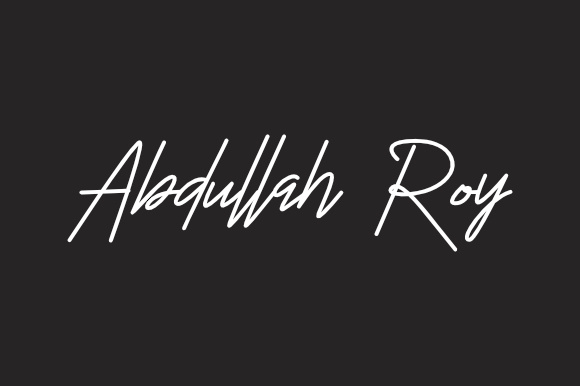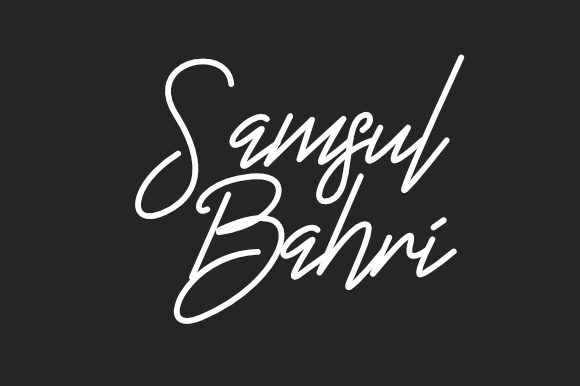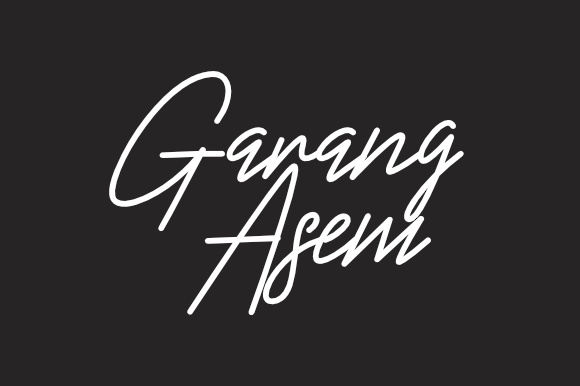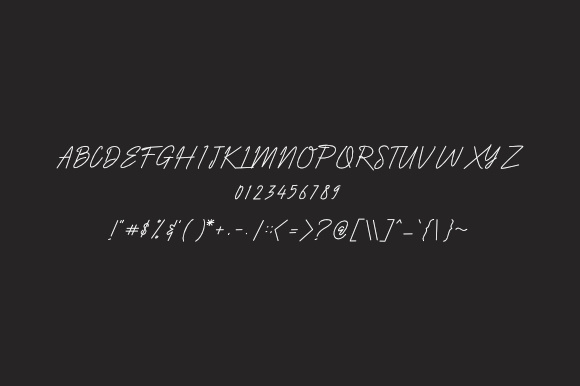
Harris Font: Elevate Your Designs with a Classy Signature Typeface
The Harris font is a stunning, classy signature typeface that has been making waves in the design world. Its elegant and sophisticated style makes it perfect for a wide range of applications, from logos and posters to invitations and more. In this article, we’ll take a closer look at the Harris font, its features, and how you can use it to elevate your designs.
The Harris Font: A Classy Signature Typeface
The Harris font is a beautifully crafted typeface that exudes class and sophistication. Its unique design makes it stand out from other fonts, and its versatility ensures that it can be used in a variety of contexts. Whether you’re a designer looking to create a stunning logo or a crafty individual looking to add a personal touch to your invitations, the Harris font is an excellent choice.
Key Features of the Harris Font
So, what makes the Harris font so special? Here are some of its key features:
• Elegant and Sophisticated: The Harris font has a unique, elegant style that adds a touch of sophistication to any design.
• Highly Versatile: The font can be used in a wide range of applications, from logos and posters to invitations and more.
• Easy to Read: Despite its elegant style, the Harris font is highly legible, making it perfect for use in body text as well as headlines.
• Unique Design: The Harris font has a distinctive design that sets it apart from other typefaces.
Uses for the Harris Font
The Harris font is incredibly versatile, and its uses are endless. Here are some ideas to get you started:
• Logos: The Harris font is perfect for creating stunning logos that exude class and sophistication.
• Posters: Use the Harris font to create eye-catching posters that grab attention.
• Invitations: Add a personal touch to your invitations with the Harris font.
• Wedding Stationery: The Harris font is a popular choice for wedding stationery, including wedding invitations, menus, and more.
• Branding: Use the Harris font to create a cohesive brand identity that reflects your values and style.
Tips for Using the Harris Font
Here are some tips for getting the most out of the Harris font:
• Use it Sparingly: The Harris font is a statement font, so use it sparingly to avoid overwhelming your design.
• Pair it with Other Fonts: Experiment with pairing the Harris font with other fonts to create a unique and visually appealing design.
• Play with Size and Color: Don’t be afraid to experiment with different sizes and colors to add depth and interest to your design.
The Harris font is a stunning, classy signature typeface that is perfect for designers and crafters looking to elevate their designs. Its elegant and sophisticated style makes it versatile and easy to use, and its unique design ensures that it will stand out from the crowd. Whether you’re creating a logo, poster, invitation, or more, the Harris font is an excellent choice. So why not give it a try and see the difference it can make in your designs?
• What type of font is the Harris font? The Harris font is a signature typeface.